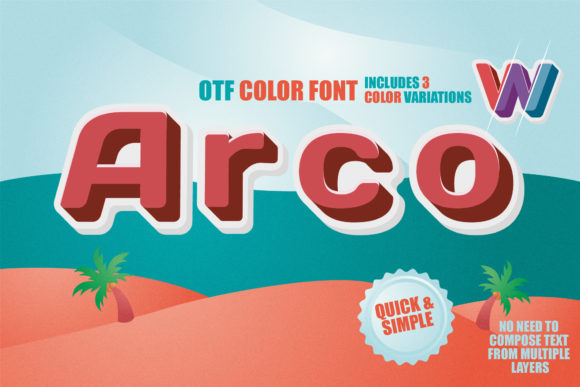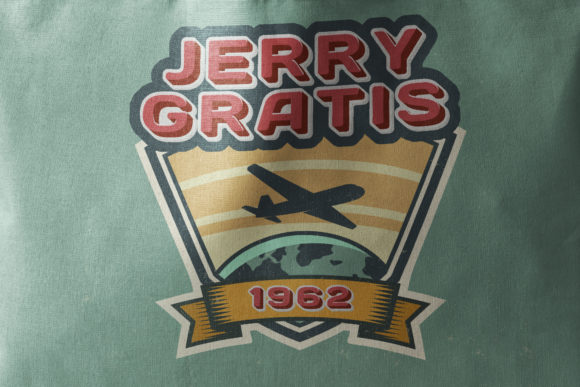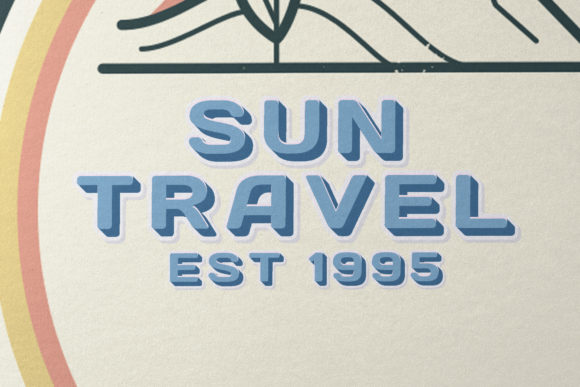
Arco Font
About Arco Font
Arco is a striking and futuristic color font that brings a cool and bold aesthetic to your designs. With its robotic-looking characters, this font adds a unique and edgy touch to any project. Whether you’re working on digital designs, branding, titles, or any other creative endeavor, Arco has the potential to take your creations to the next level.
As a color font, Arco allows you to incorporate vibrant colors and intricate details directly into your typography. Its distinctive and futuristic design makes it stand out and adds a contemporary feel to your artwork. Whether you’re designing posters, logos, websites, or any other visual media, Arco will make a strong impact and catch the viewer’s attention.
By adding Arco to your font library, you’ll have a versatile and attention-grabbing typeface at your disposal. Its bold and robotic appearance allows it to work well with a wide range of topics and themes, making it a valuable asset for any creative project.
Explore the possibilities, experiment with colors, and let Arco bring a futuristic and impactful touch to your designs. With its bold and cool look, this color font has the potential to elevate your creations and leave a lasting impression on your audience.